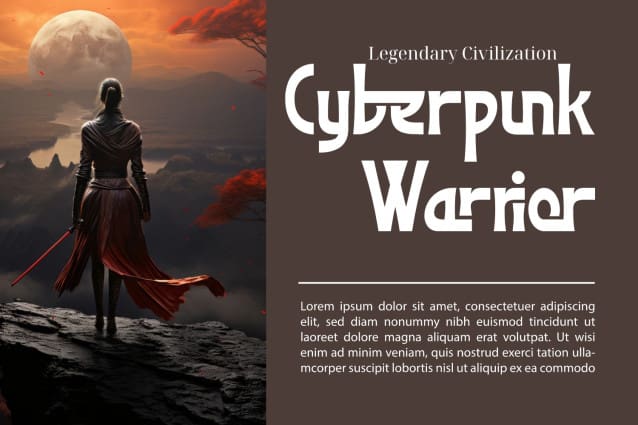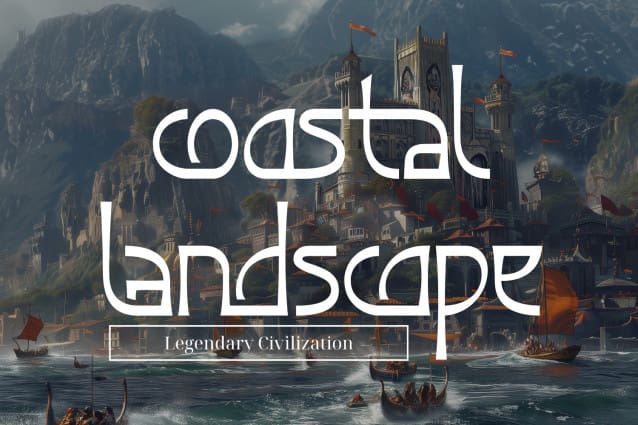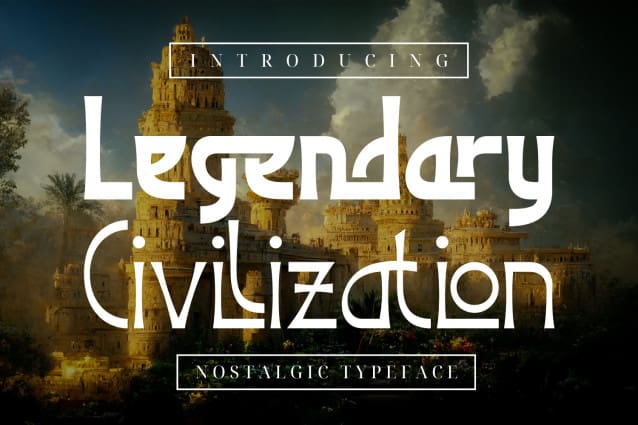
Legendary Civilization Font
Legendary Civilization Font – Back to the movement in the decorative arts and architecture that originated in the 1920s and developed into a major style in western Europe and the United States during the 1930s. Which combining classic typography with awesome features bring classic touch on this decade :), This font can be used on many product designs of various types such as drink bottles, coffee shops, fashion products, book covers, product labels, product logos, bakery etc.
Legendary Civilization was built with OpenType features and includes 100 ligatures, alternate, numbers, punctuation, and it also supports other languages.